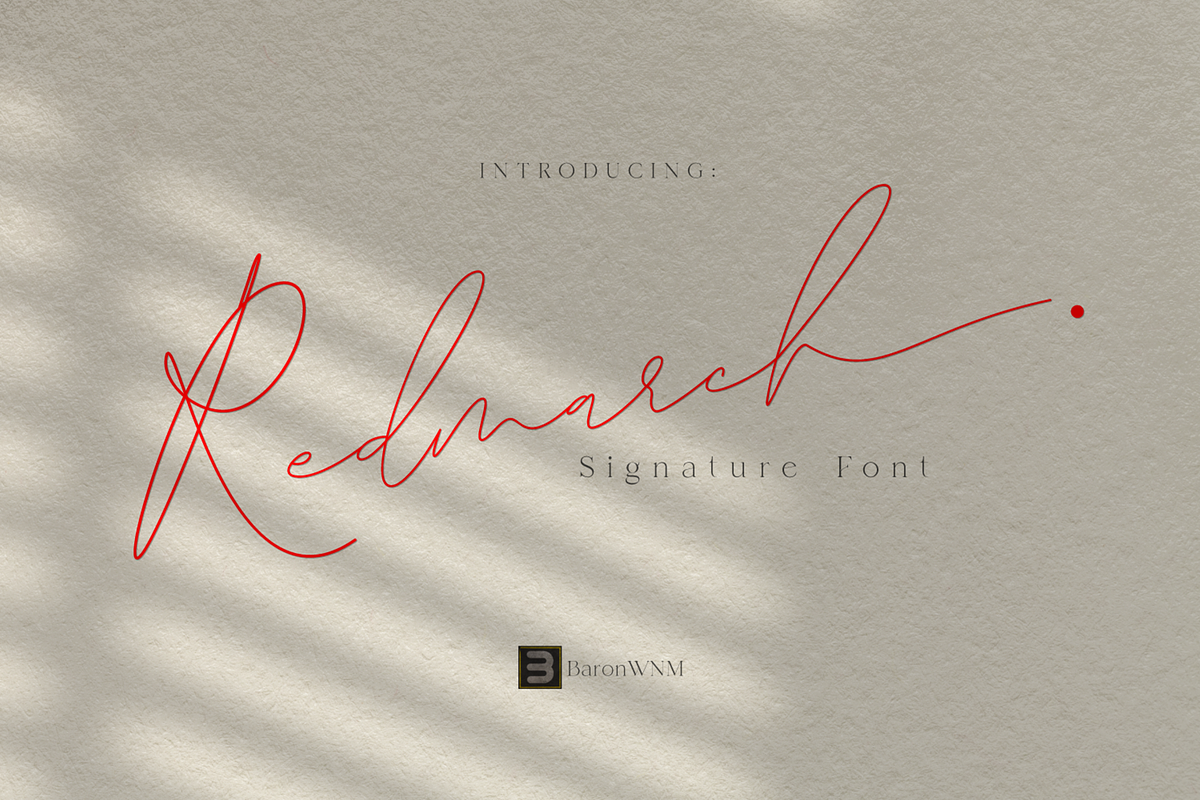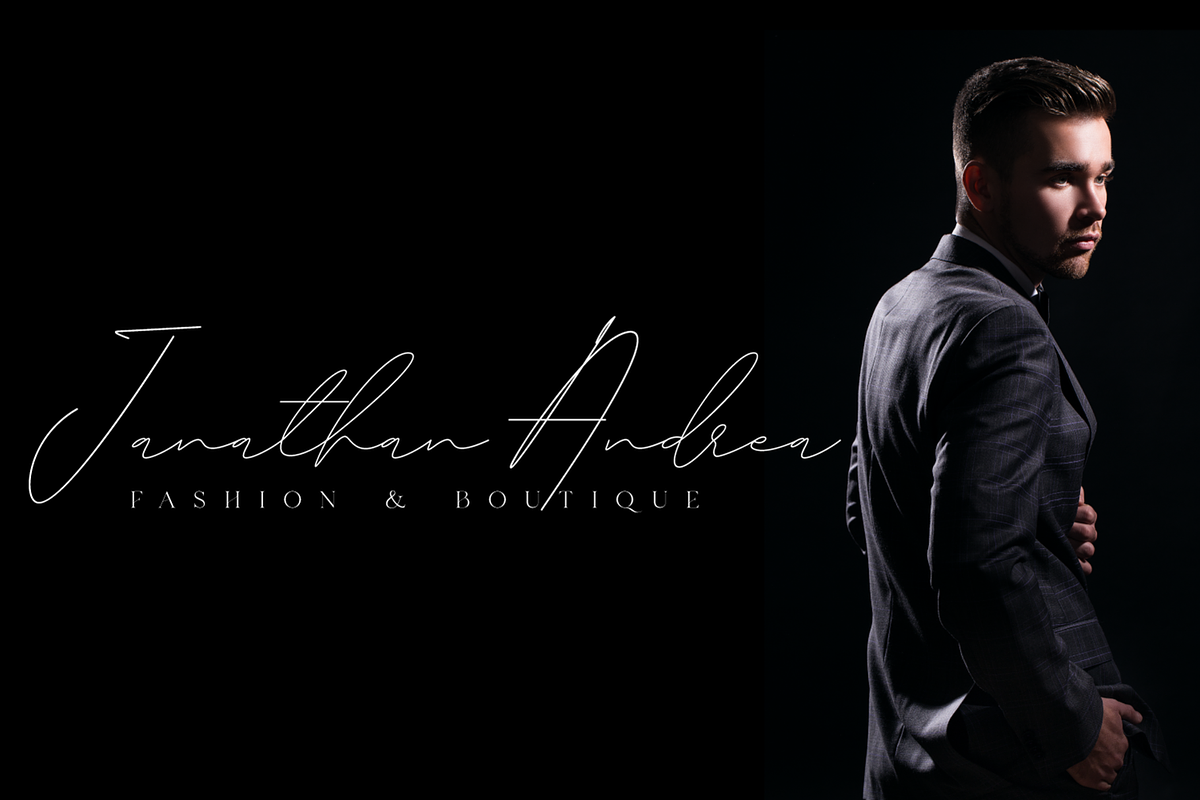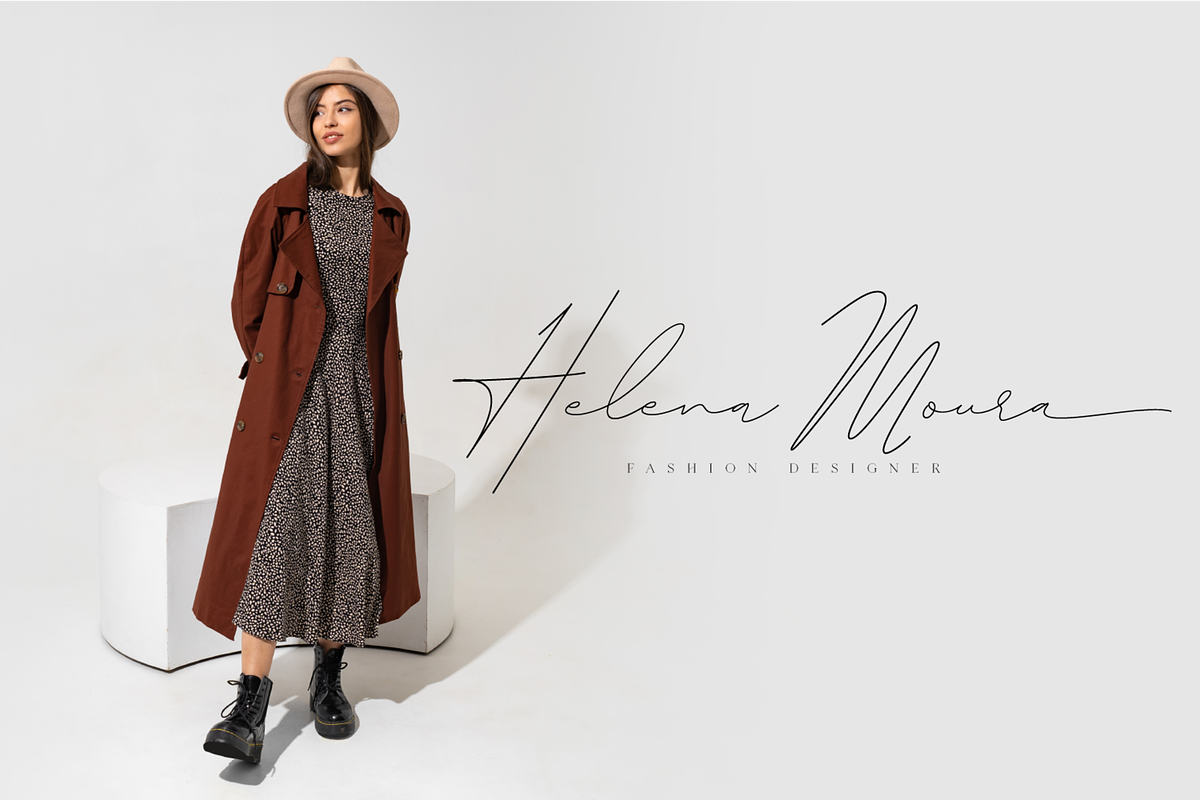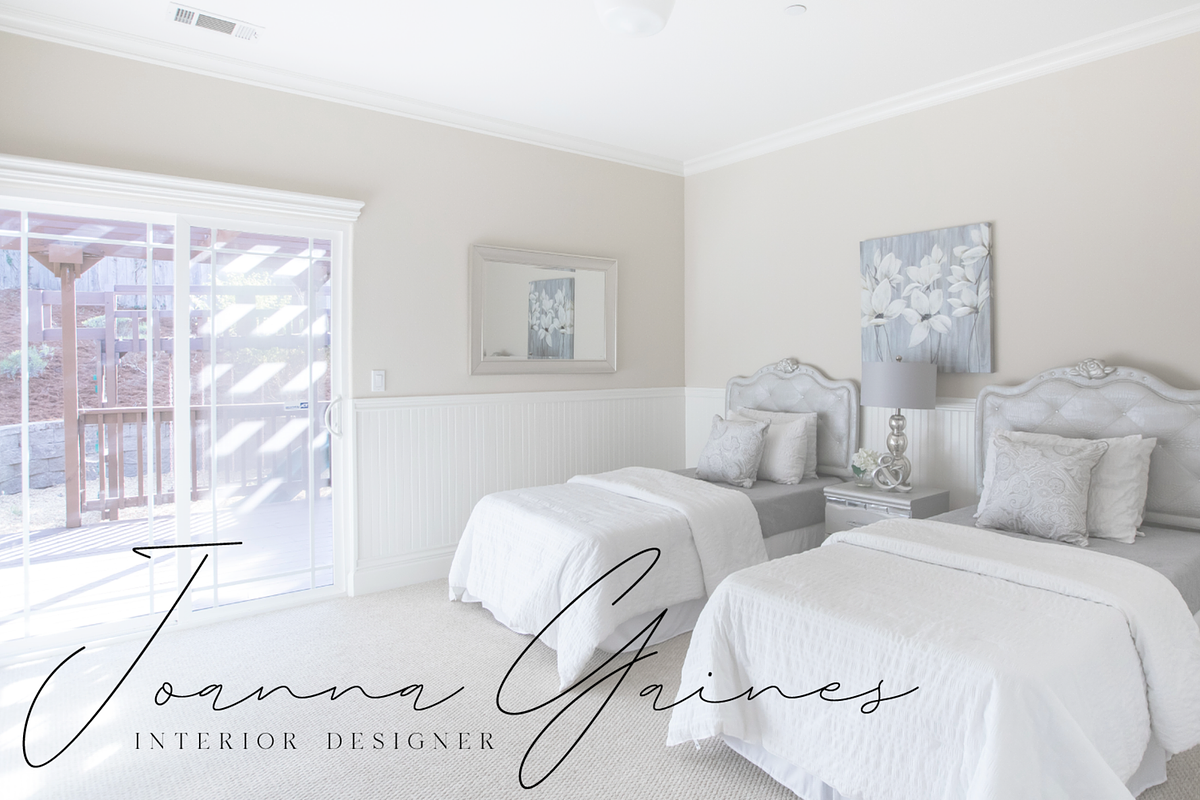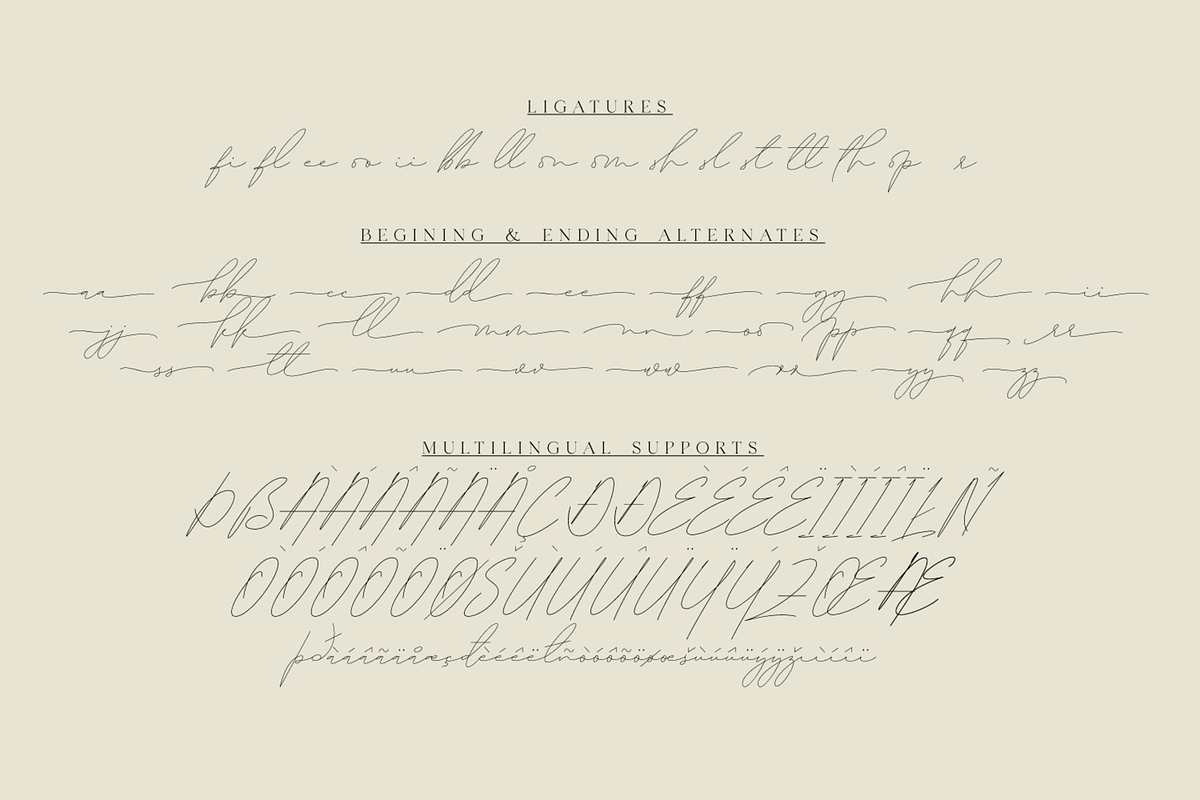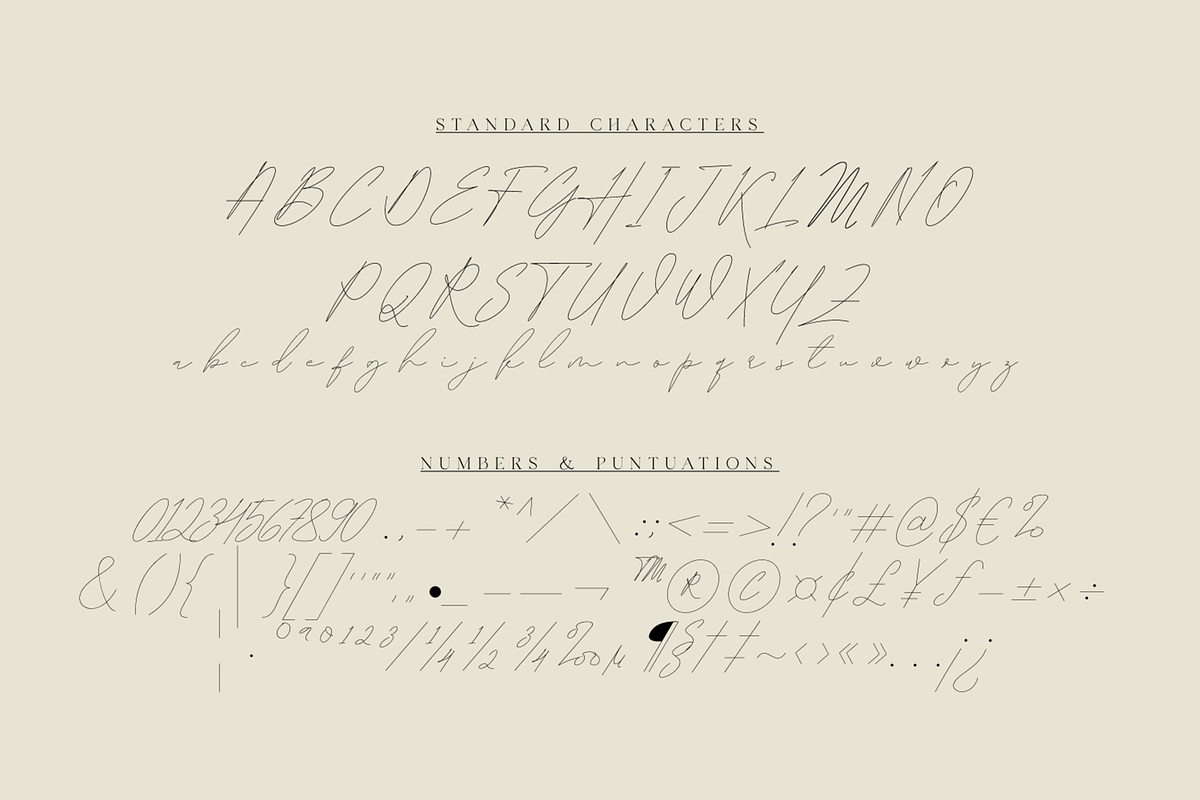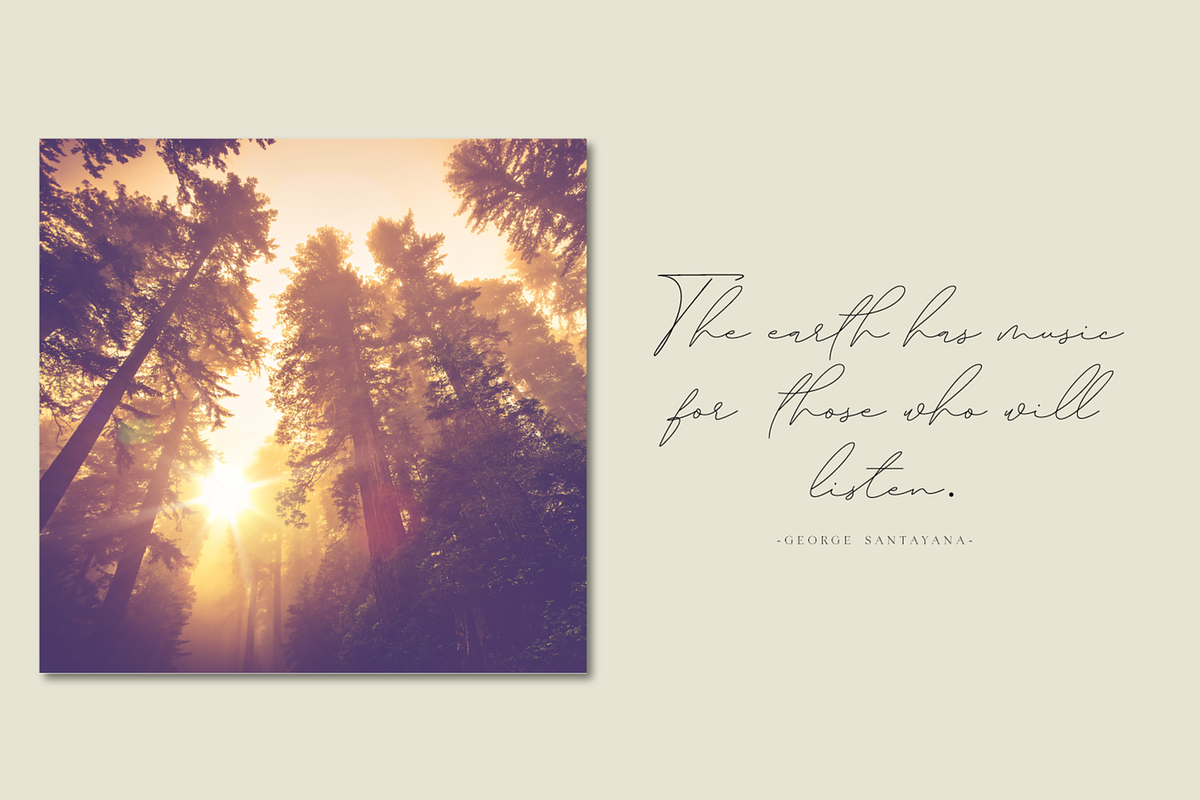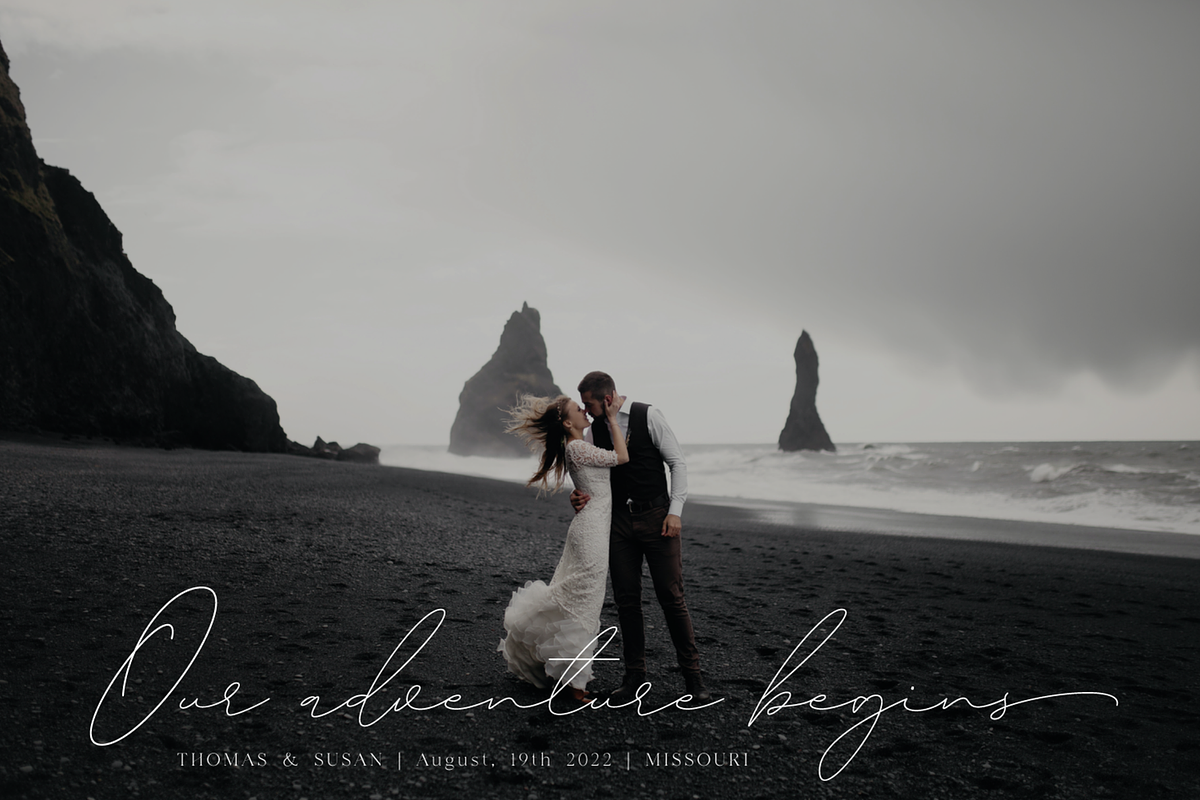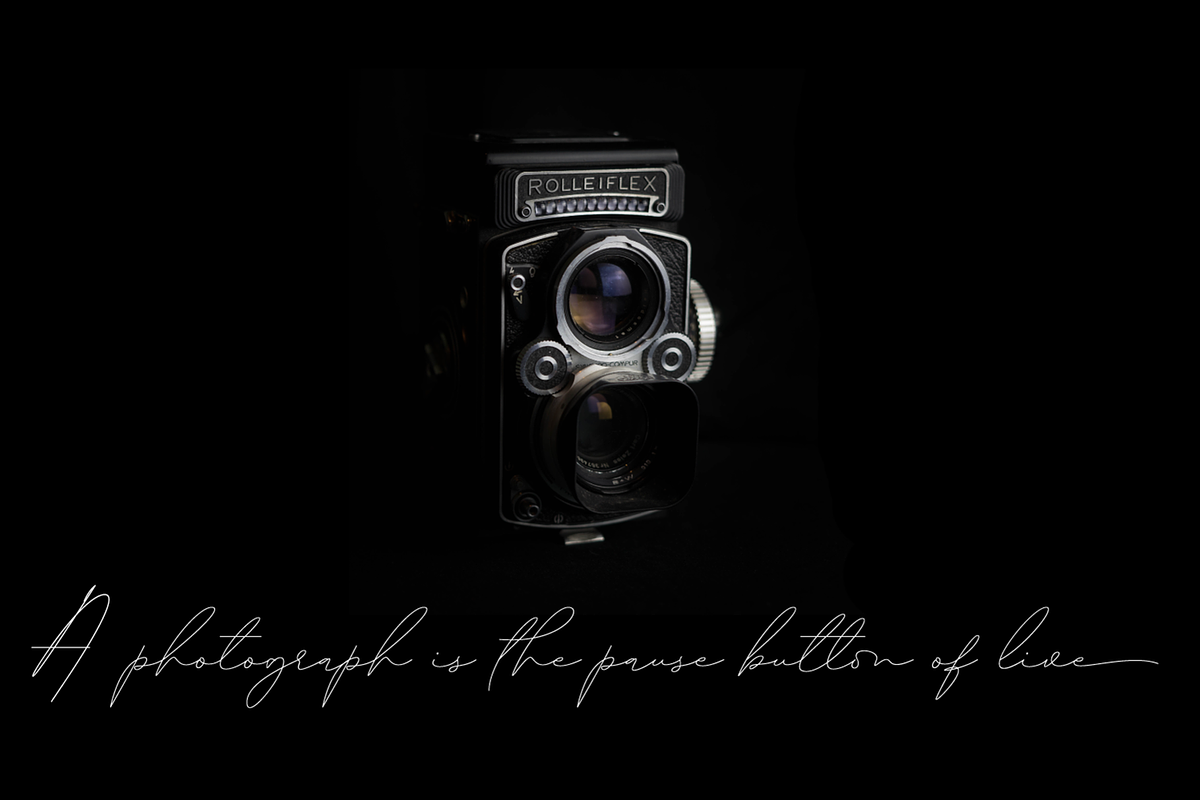
Redmarch
Thank you for visiting our item. Redmarch is a monoline script font that gives a natural-looking impression that is perfect for those of you who want to use a signature font. Redmarch is very suitable for digital branding, advertising, name cards, product labels, printing t-shirts, greeting cards, invitation cards, etc. Redmarch has several ligatures, alternates, begining and anding swashes to give a sweet touch at the beginning and end of words.